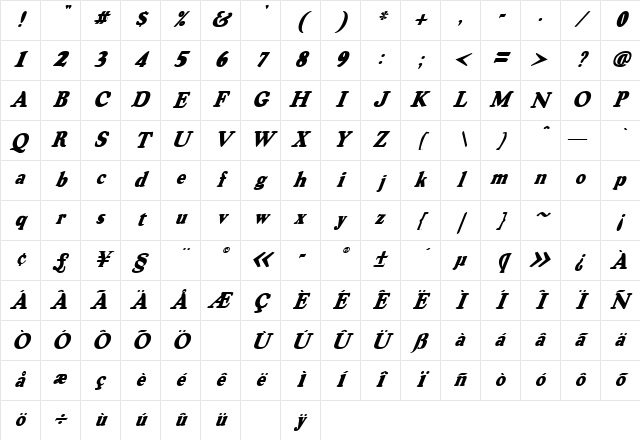
OswaldGrey Italic
Complete OswaldGrey Italic glyph index. Displaying only characters natively supported by OswaldGrey Italic font.
Design Context for OswaldGrey
OswaldGrey is a composed and adaptable typeface that performs quietly and consistently across a wide range of design contexts. The slanted form adds forward momentum and visual energy.
Pro Tip: Use OswaldGrey for emphasis, pull quotes, and subheadings where its slanted energy can add rhythm to the layout.